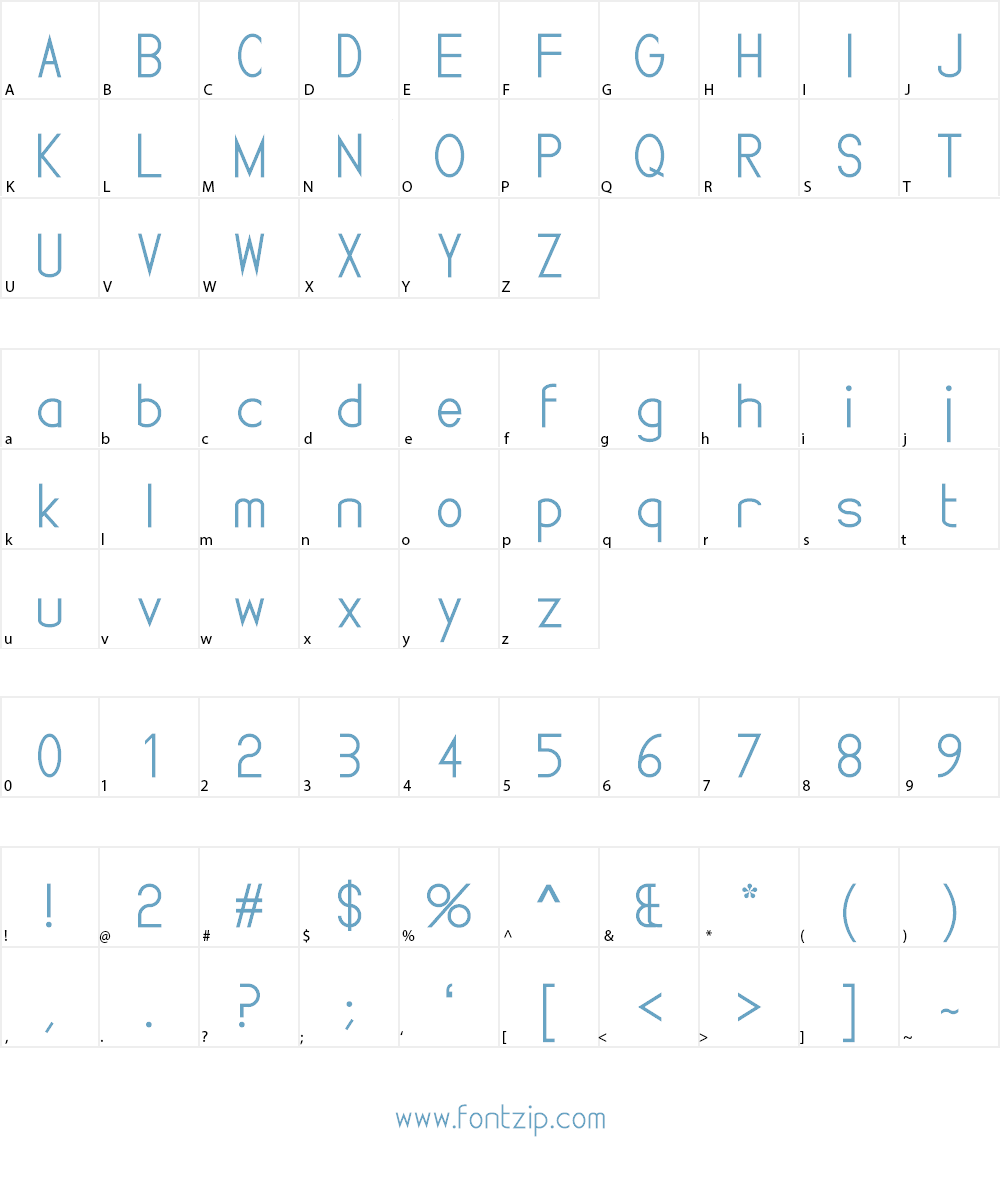
A simple font designed using High-Logic's Font creator. using mathematics i made every part of every glyph 120em thick. the font renders well in sizes 16pts-and-above, most common foreign glyphs including äåãàáȧāâǎ. over 5000 kernings were added to give a uniform distance between all glyphs of 200em. Enjoy my first ever font :)